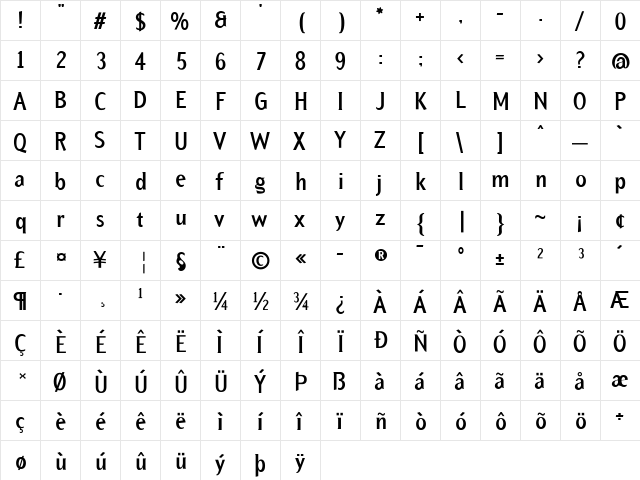
Formica Bold
Design Context for Formica Typeface
Formica is a composed and adaptable typeface that performs quietly and consistently across a wide range of design contexts. The heavy weight commands attention and anchors typographic hierarchies.